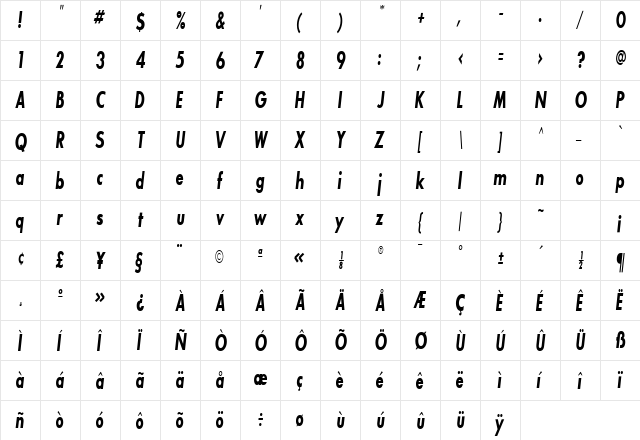
Bougan BlackCondensed SSi Bold Condensed Italic Font Preview
Design Context for Bougan BlackCondensed SSi Typeface
Bougan BlackCondensed SSi takes a measured approach to typography — its balanced proportions and neutral character make it a reliable workhorse for both digital and print work. Its italic angle brings a sense of urgency and motion to the letterforms. The heavy weight commands attention and anchors typographic hierarchies. The condensed width makes it efficient for tight spaces without sacrificing legibility.
Pro Tip: Use Bougan BlackCondensed SSi for emphasis, pull quotes, and subheadings where its slanted energy can add rhythm to the layout.